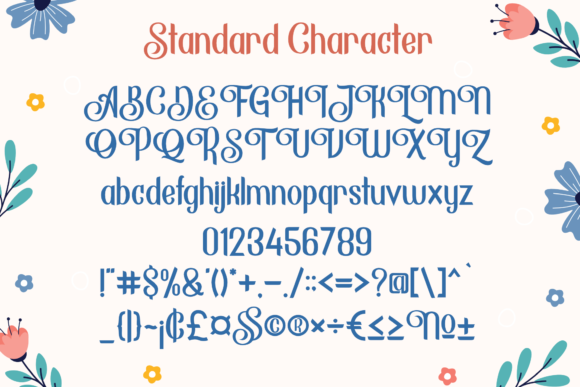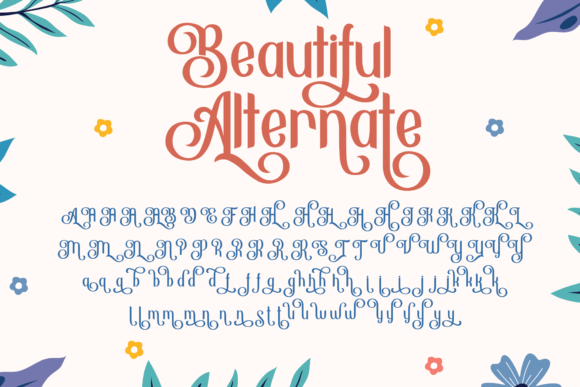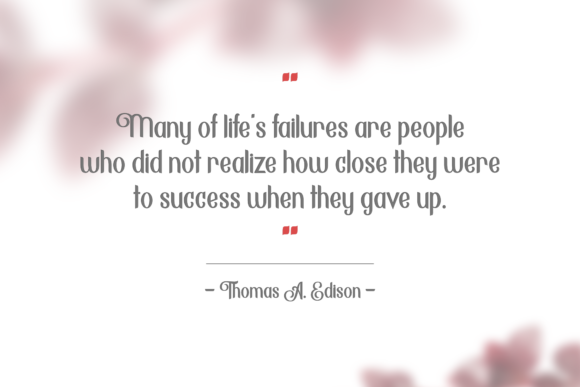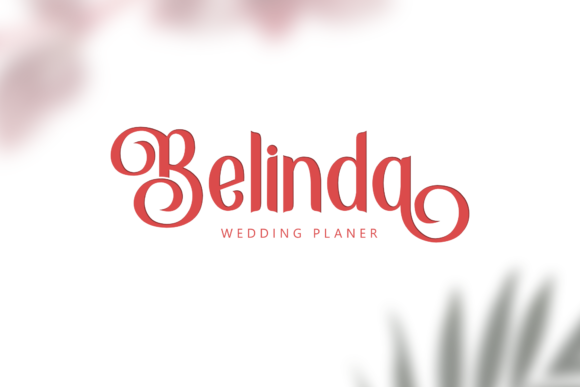
Introduction to Lathishine Font
Lathishine is a gorgeous and stylish display font.
It features beautiful swashes that will take your projects to the next level This font is PUA encoded which means you can access all of the cute glyphs and swashes with ease.
Key Features of Lathishine Font